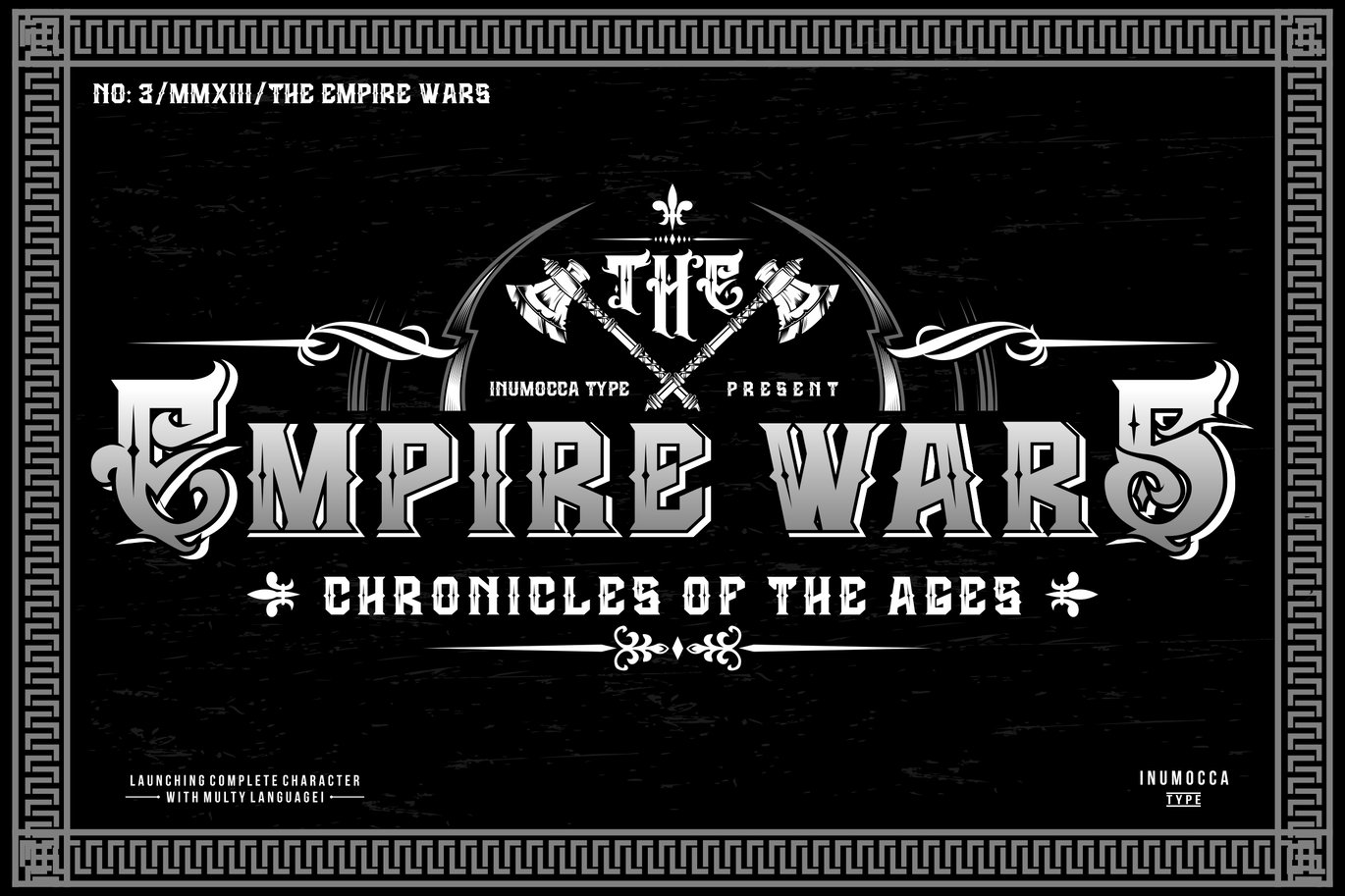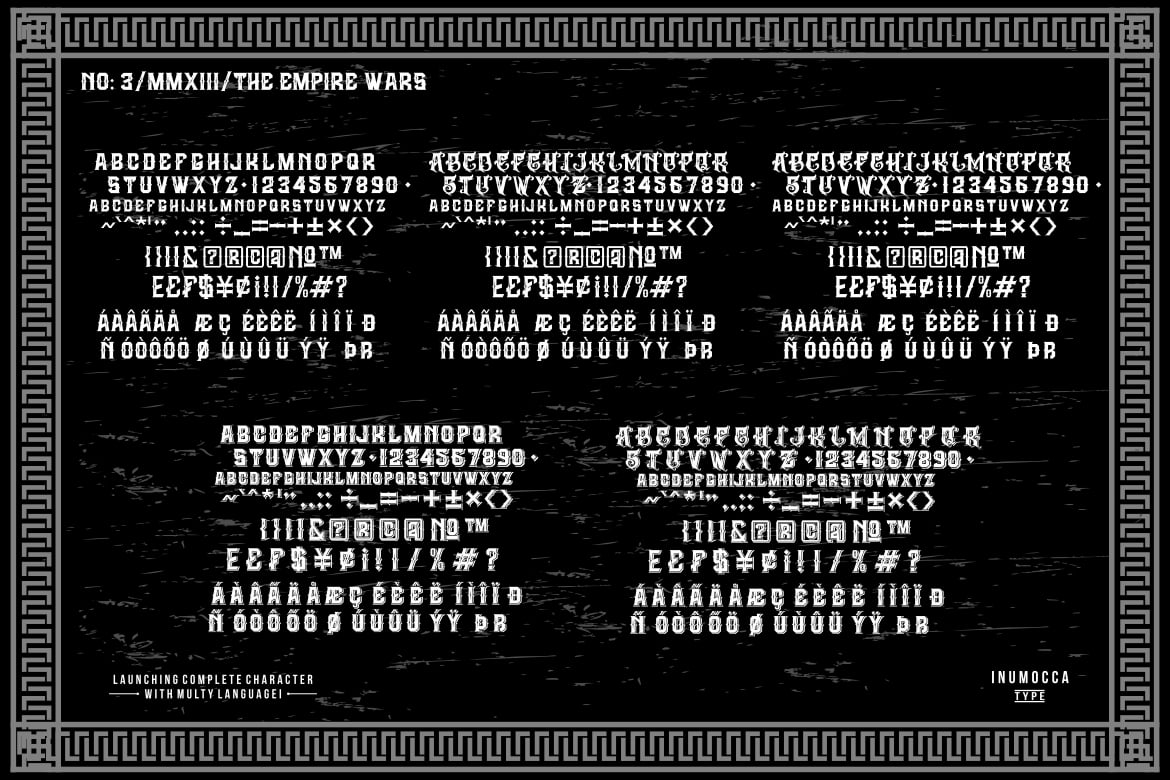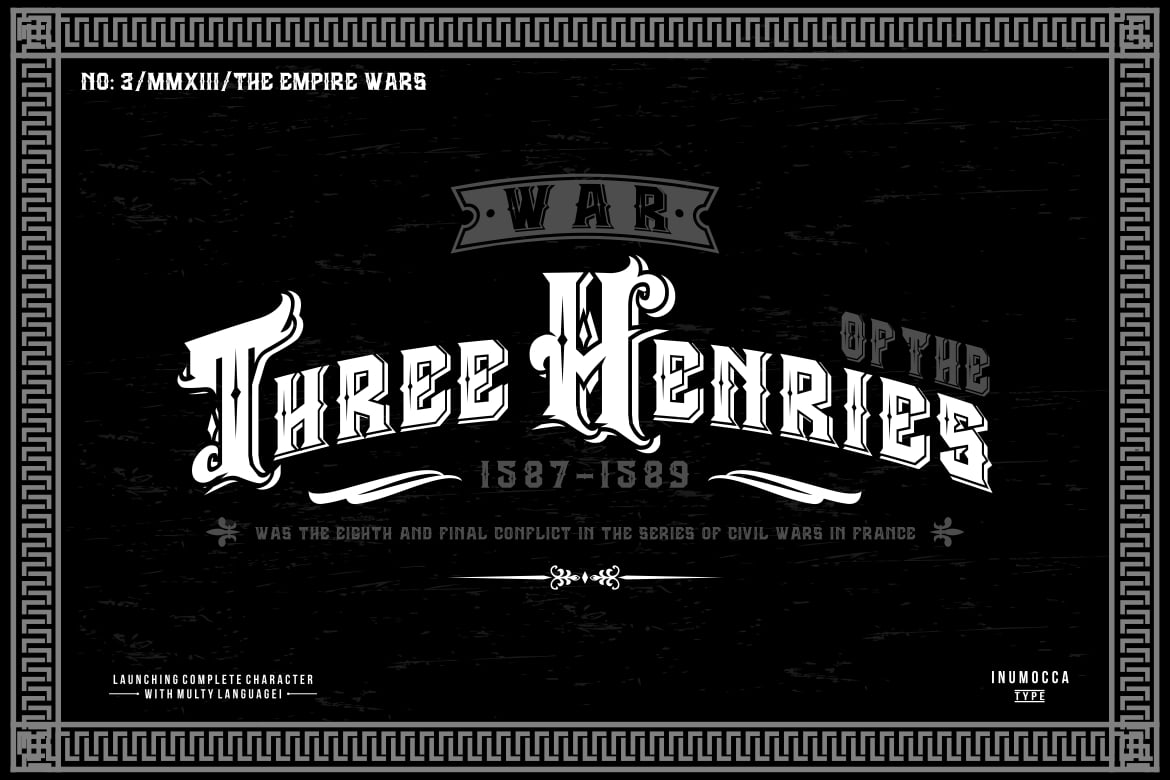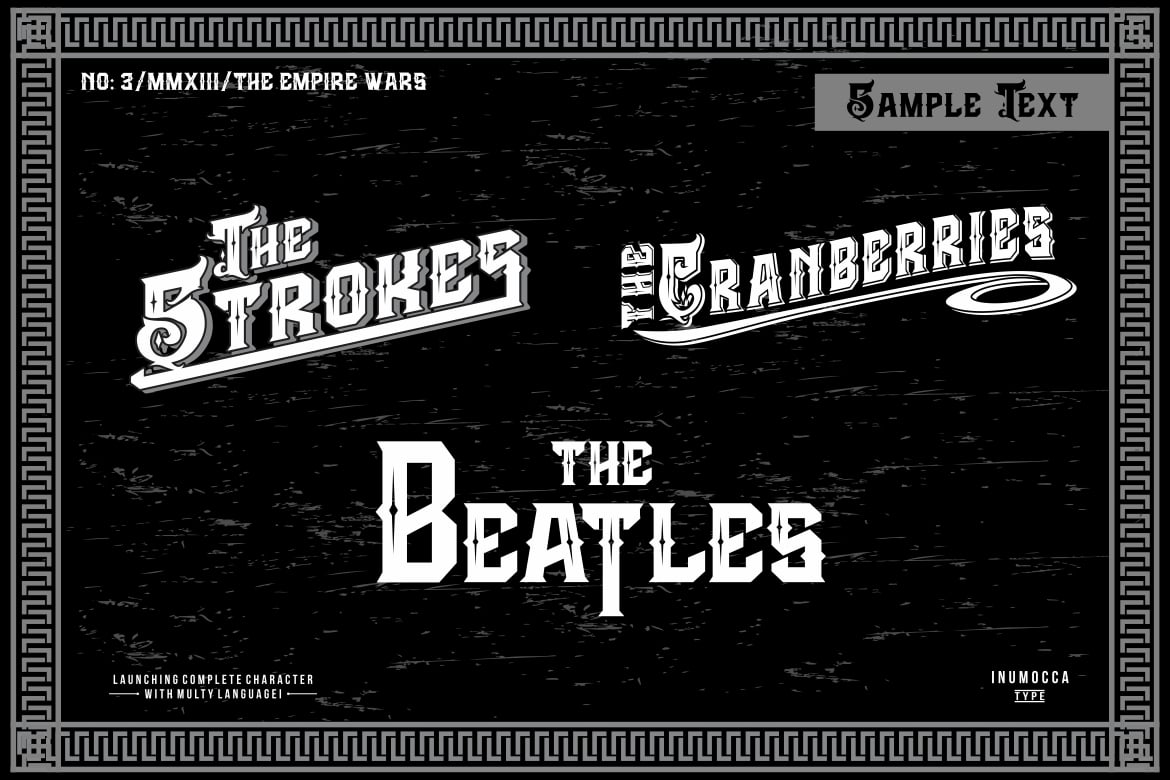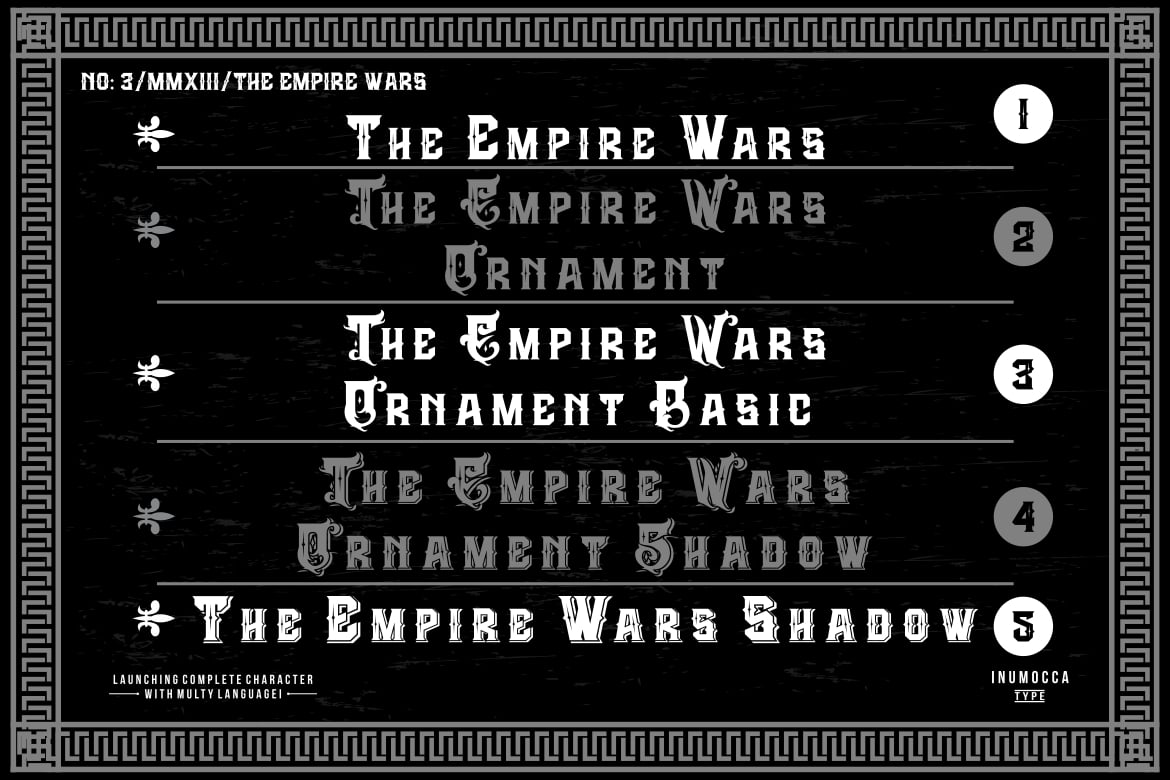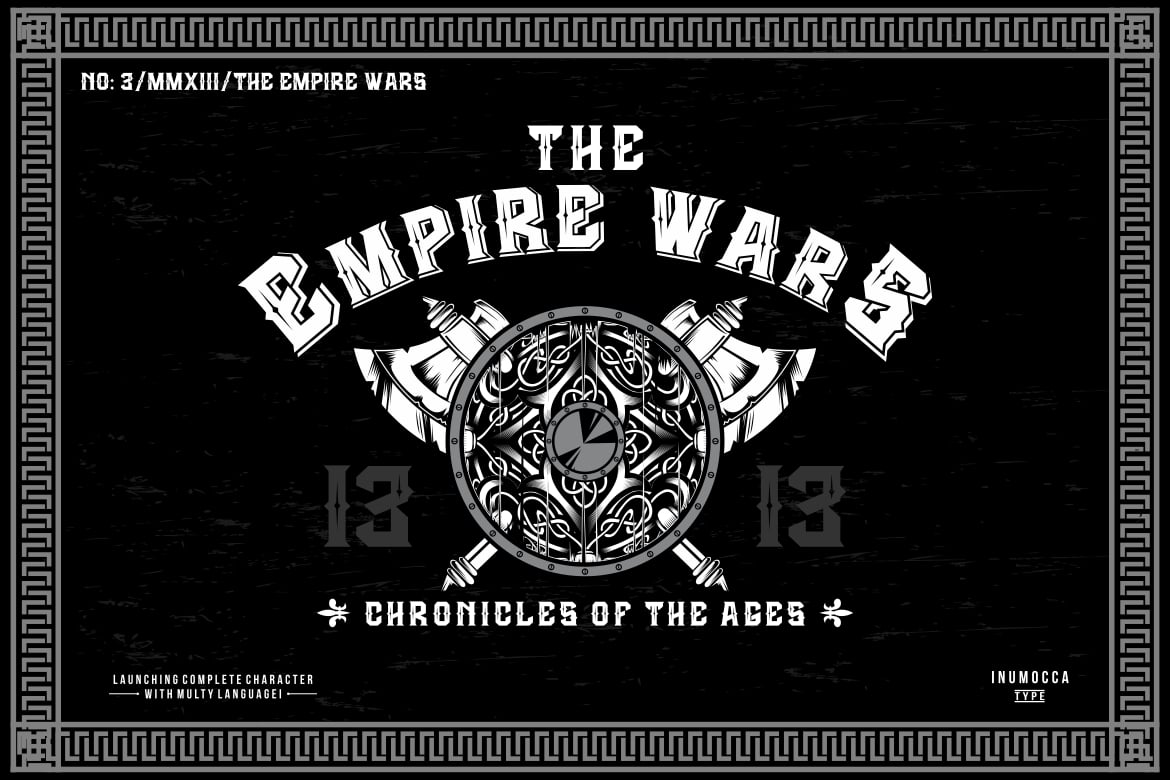
The Empire Wars (family font)
The Empire Wars was inspired from lettering on medieval age. its really great font for your band, label, clothing company, etc
Available : WITH 5 FONT
UPPERCASE With Ornament basic solid
UPPERCASE With Ornament Shadow
UPPERCASE With Ornament
UPPERCASE With Shadow
UPPERCASE basic font,
lowercase,
Numeric,
Punctuation characters